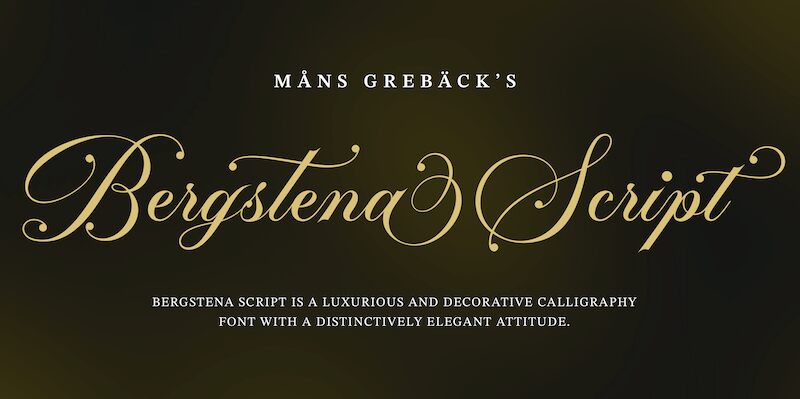
Bergstena Decorated font by Mans Greback is a free calligraphy font. Part of the Bergstena family, it stands out with sweeping hairline flourishes and inky, high-contrast strokes that feel hand-drawn yet refined. The exaggerated swashes curl like ribbon, while the core letterforms stay disciplined, giving you drama without losing readability when set large.
Using Bergstena Decorated, you can elevate wedding suites, boutique logos, perfume or cosmetics packaging, certificate titles, elegant menu headers, and editorial mastheads. This free font shines when you give its swashes room to breathe-set it big with generous spacing-and pair it with a quiet geometric sans to keep the spotlight on those silky flourishes.